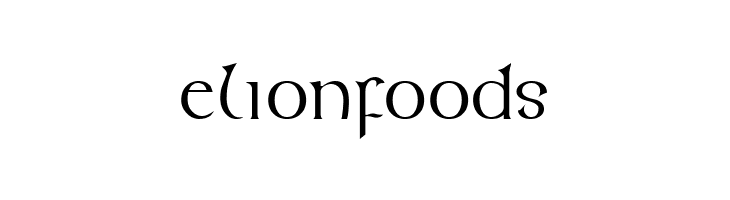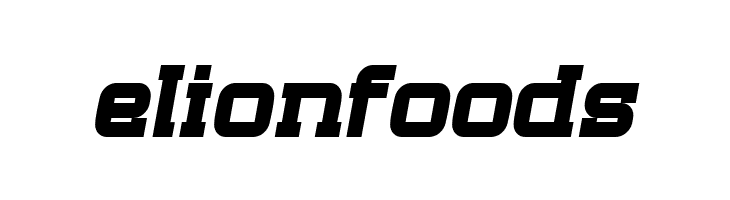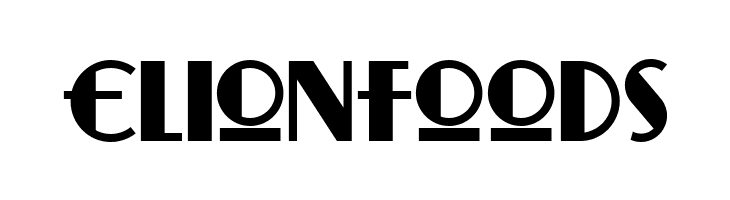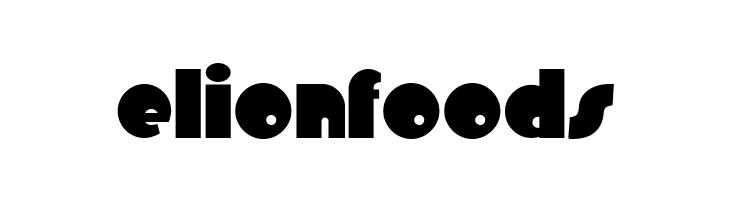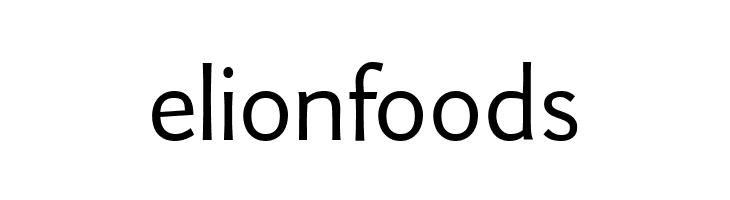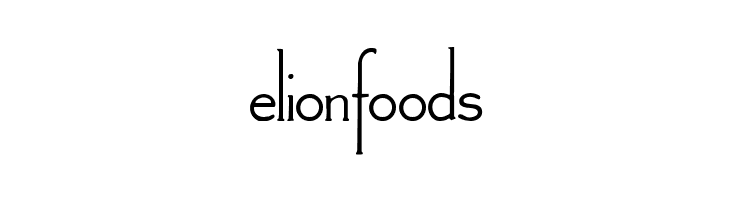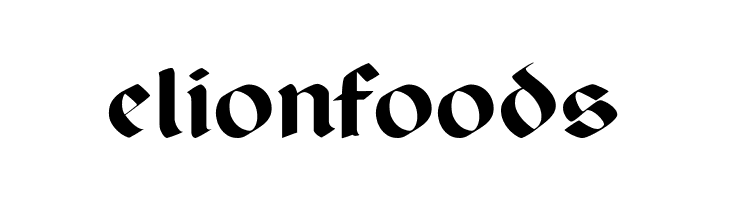
A bold, dynamic font with a slight slant and strong geometric influence.
A bold, geometric font with Art Deco influences, perfect for stylish and sophisticated designs.
A bold, geometric font with retro and art deco influences.
A bold, geometric font with Art Deco influences and a futuristic style.
A bold, zigzag-patterned decorative font with Art Deco influences.
A modern, elegant font with art deco influences and slender letterforms.
A bold, angular Blackletter-style font with a dramatic and historical flair.